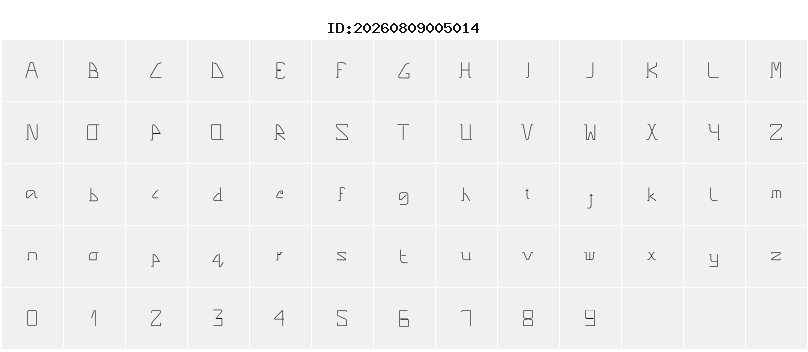
• Font Name: Pinnacle
• Designer: Mukta.Pai
About Pinnacle.otf
Pinnacle.otf is a modern, elegant sans-serif font designed for ultimate readability and visual harmony. Perfect for branding, headlines, web design, and print materials.